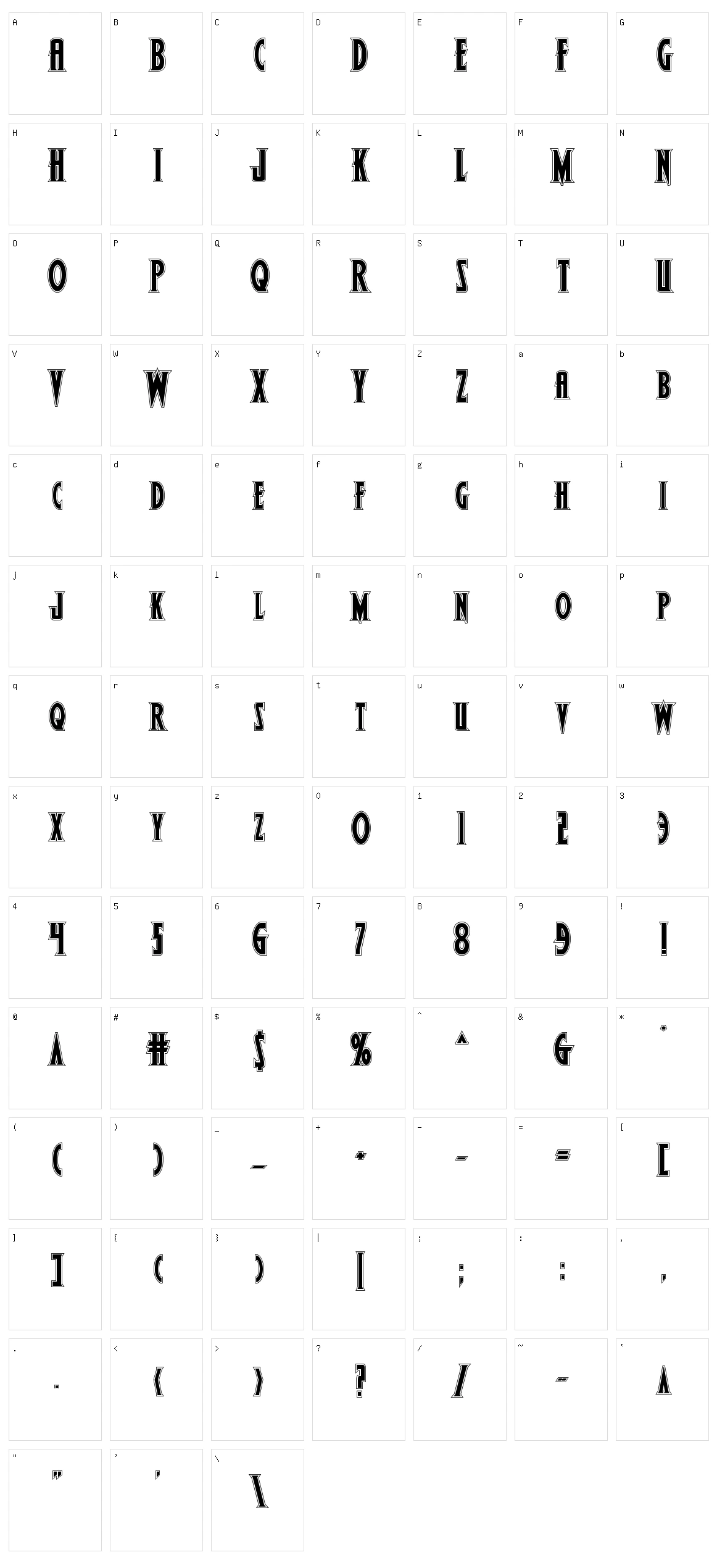
This font comes with the following 19 versions: Regular, Italic, Expanded, Expanded Italic, 3D, 3D Italic, Outline, Outline Italic, Halftone, Halftone Italic, Academy, Academy Italic, Gradient, Gradient Italic, Engraved, Engraved Italic, Semi-Leftalic and Leftalic.